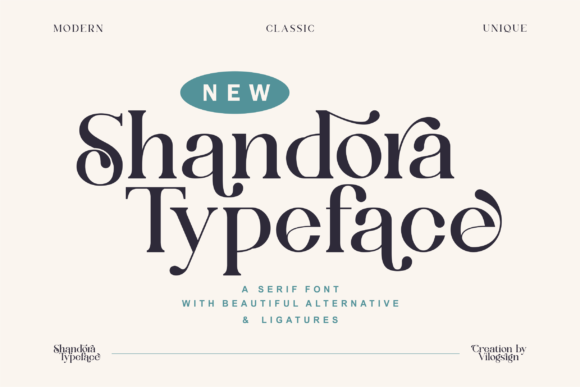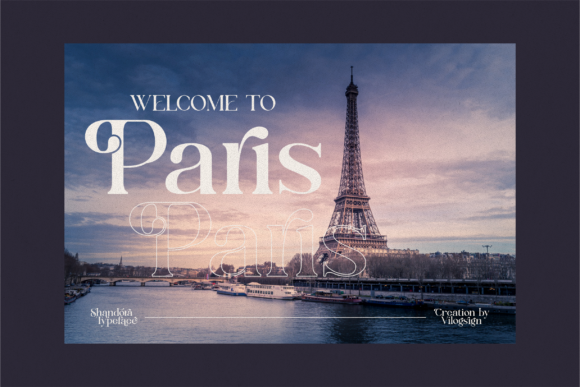
Shandora Font
Shandora is a bold and distinct looking serif font. It has a classy, elegant and modern look that can be used for logos, branding, invitations, stationery, wedding designs, social media posts, and much more!